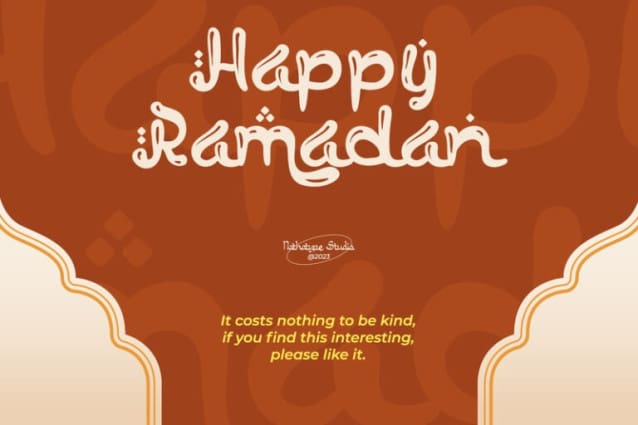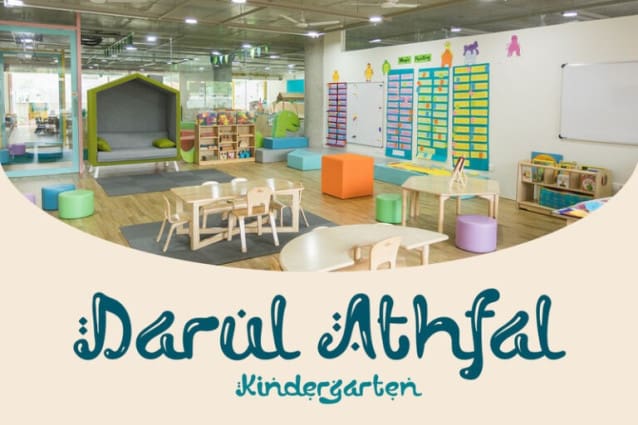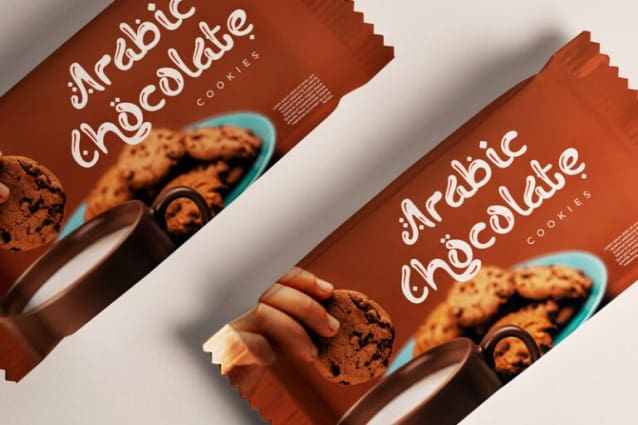
Happy Ramadan Font
Happy Ramadan Font is a delightful display font that captures the spirit of the sacred month with a touch of playfulness and warmth. Happy Ramadan is not just a font; it’s a celebration of the Ramadan spirit with a playful twist. It’s a versatile choice to convey cultural richness, joy, and a welcoming atmosphere.
The characters in HappyRamadan are crafted with soft, rounded shapes that evoke a sense of joy and friendliness. The font’s letterforms resemble bubbles, creating a unique and whimsical appearance that adds an element of fun to your text.